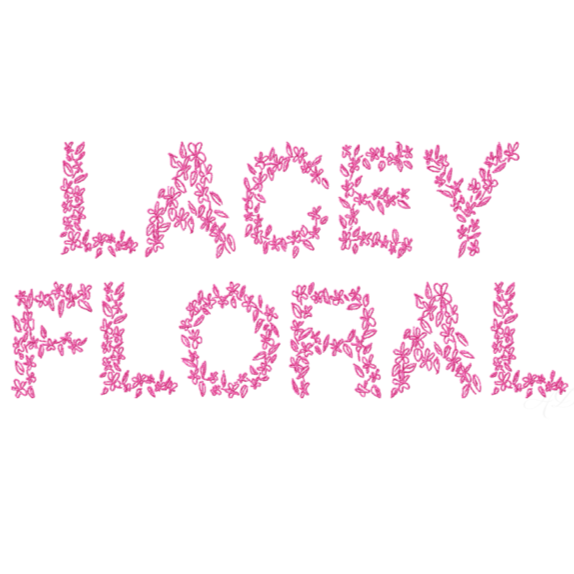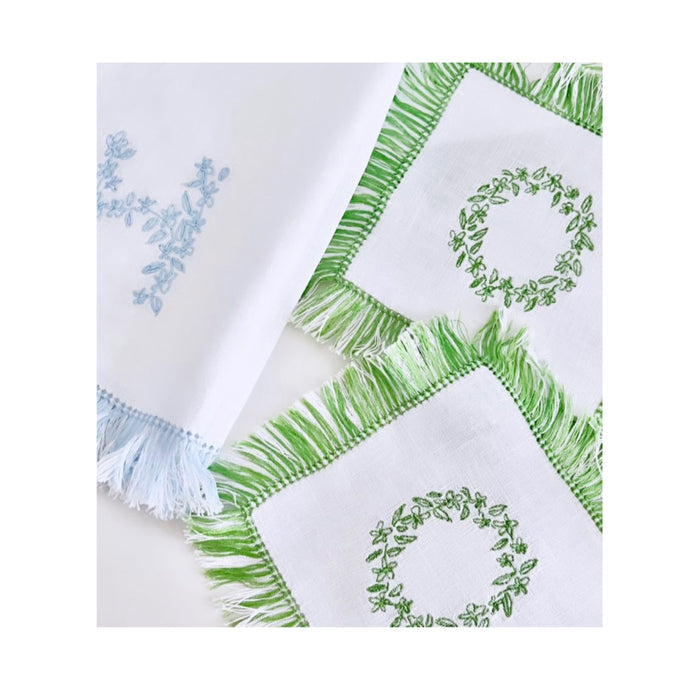
Floral Monogram Embroidery Font - Lacey 4x4 Hoop Sizes
Enhance your crafting projects with our Floral Monogram Embroidery Font, designed specifically for those who appreciate unique and artistic design elements. This satin stitch font features uppercase letters A-Z, beautifully styled with hand-drawn flowers, making each letter a stunning centerpiece.